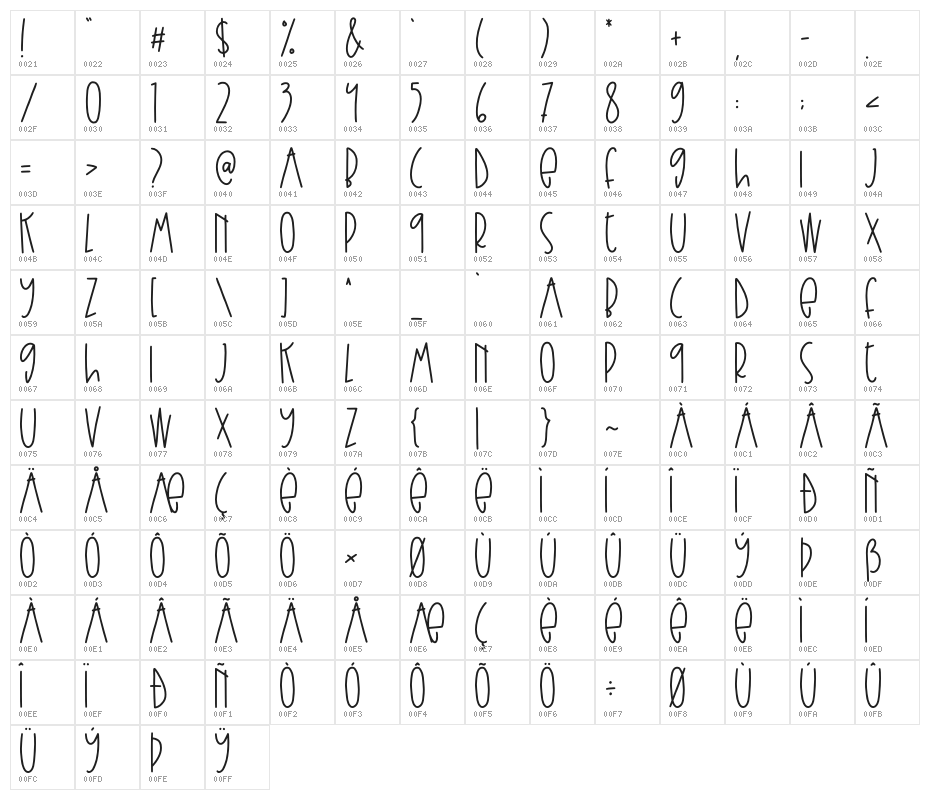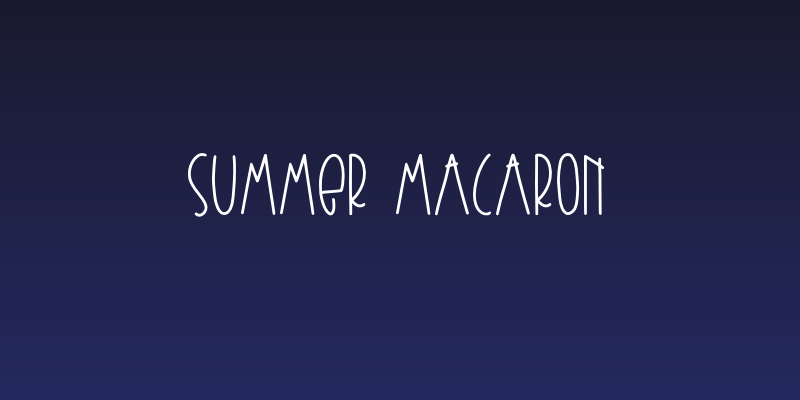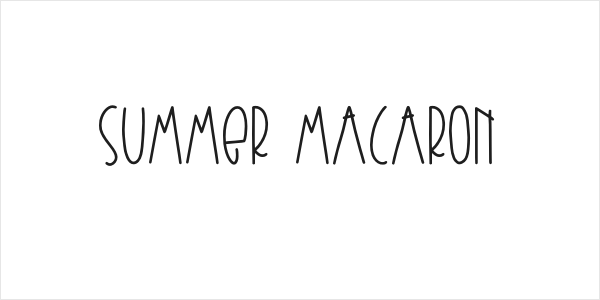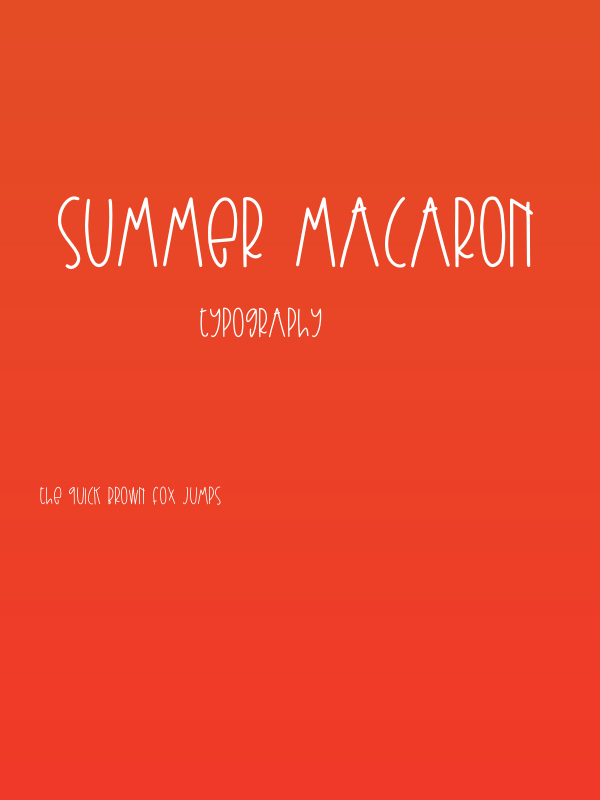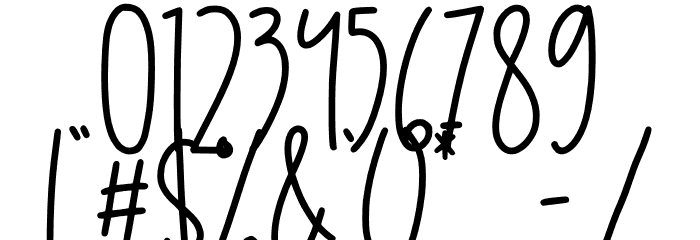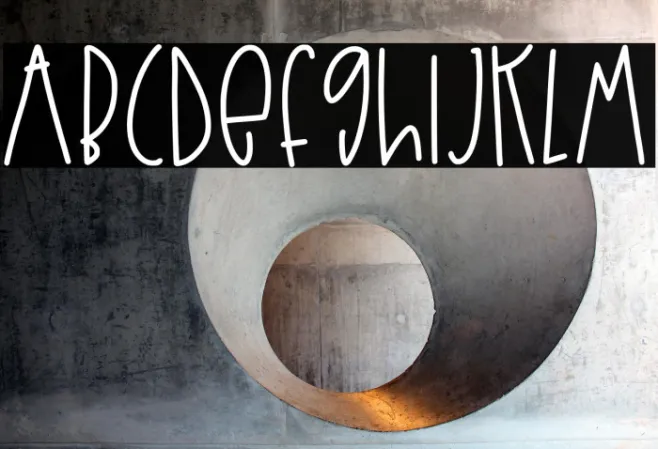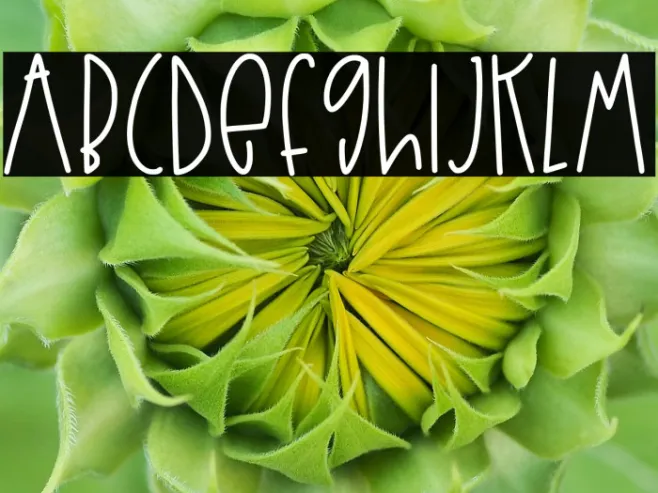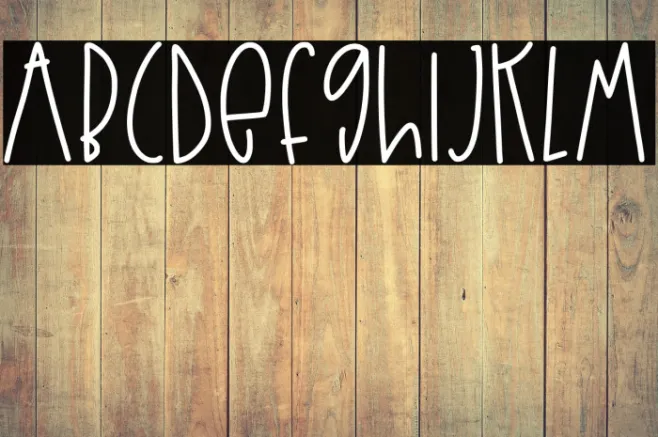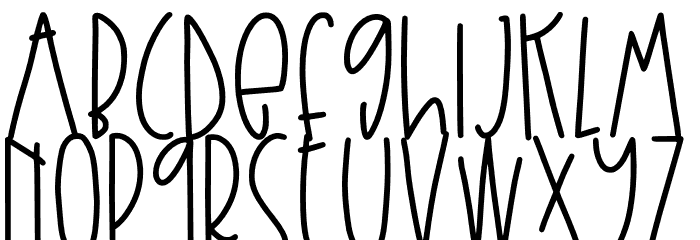
Summer Macaron Font
Summer Macaron Description
This playful and whimsical font features tall, narrow characters with a hand-drawn aesthetic. The letters are slightly irregular, giving them a charming, informal feel. The strokes are consistent in thickness, with a smooth, flowing quality that adds to the font's approachable nature. The uppercase and lowercase letters maintain a cohesive style, while the numerals and special characters complement the overall design. This font's unique personality makes it stand out, perfect for projects that require a touch of creativity and fun.
| Overall Style | Whimsical |
| Use Case | Logos, Posters, Creative projects |